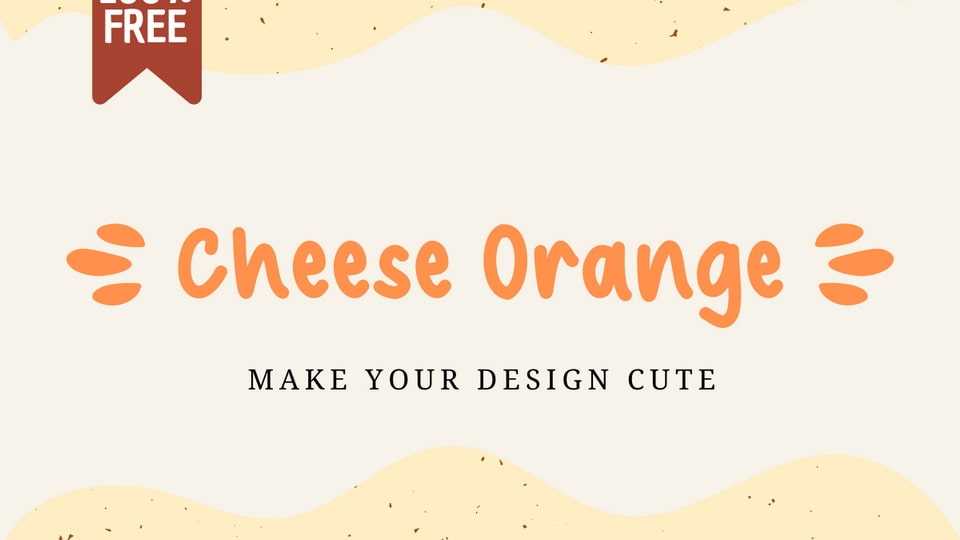
Download Cheese Orange font, a sweet and friendly handwritten typeface with a natural and cute look, soft, flowing strokes and gentle curves.
Designer: Viola Type